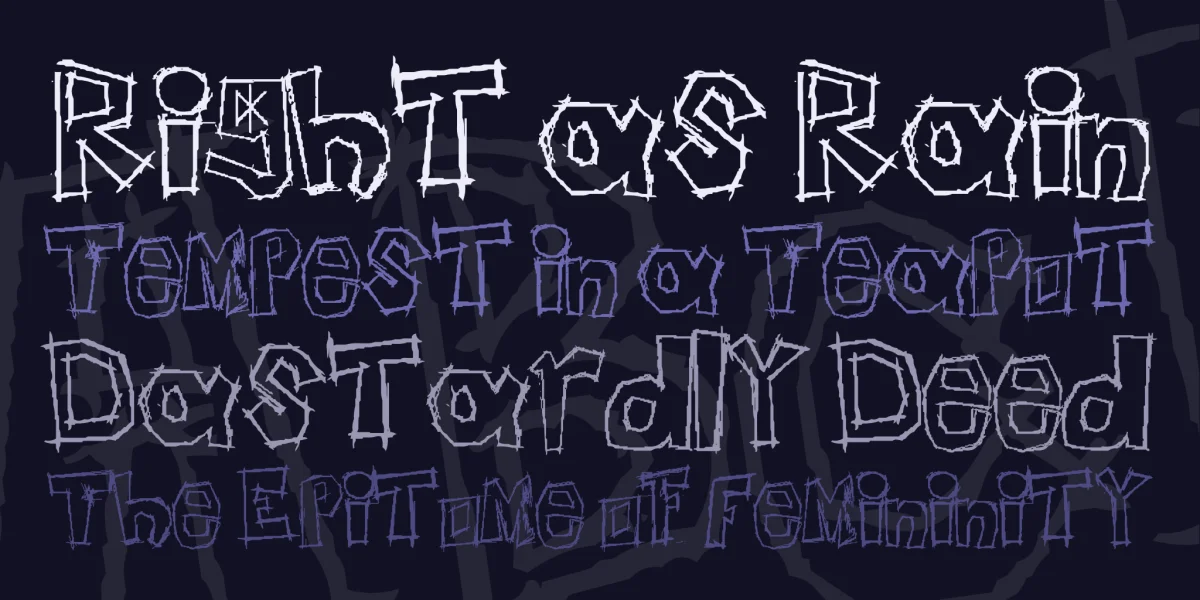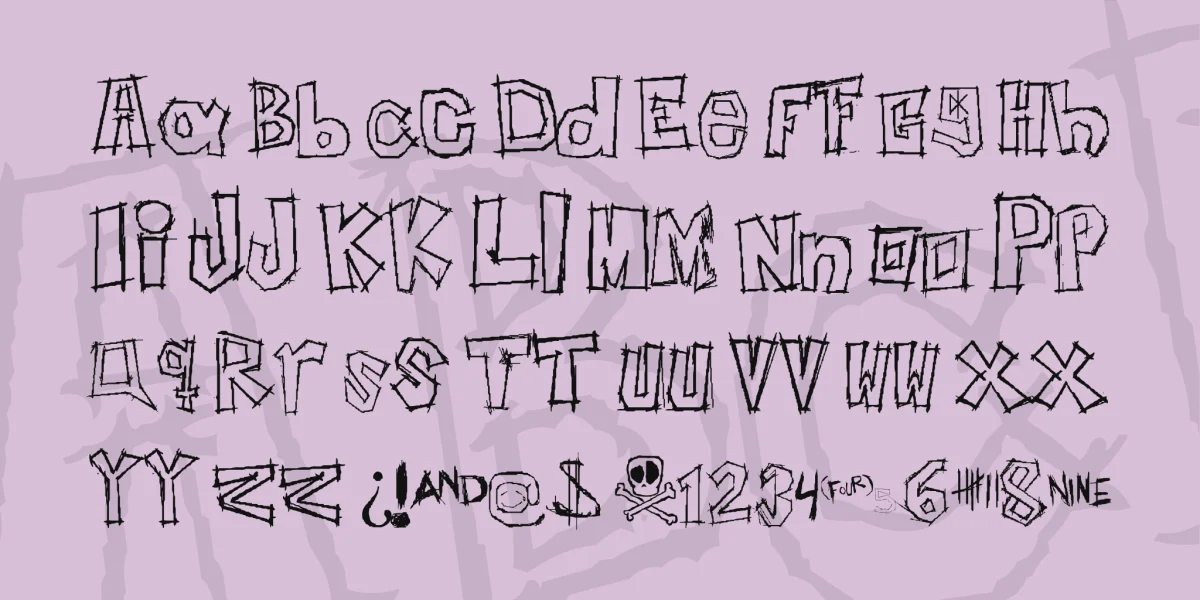
INSERT YOUR NAME HERE (UPDATED VERSION) I now added better designed skulls and a couple of other things, so hope you'll think it's better than the first one, anyway once again i'm gonna' say this: don't take credit for this font, this font has cost several hours in front of a computer and several headaches, so don't go off and tell your friends that you made this font.